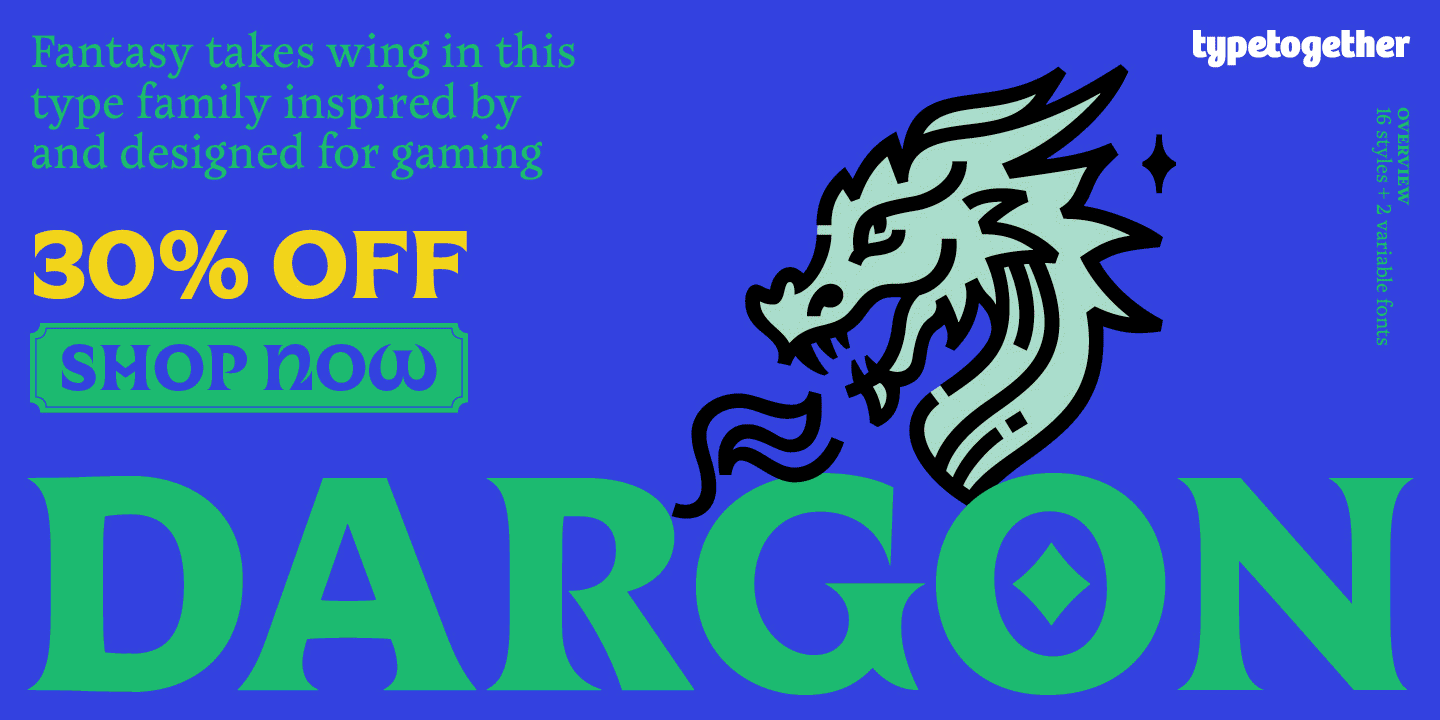
Winner of the 2023 Gerard Unger Scholarship, Dargon is a typeface forged in the fires of gaming legend – honed for razor-sharp legibility on colossal TV screens and console renders, where it commands UIs, menus, and dialogues from afar. Its uncial roots, steeped in myth and forgotten runes, unleash dramatic immersion for fantasy novel covers. They beckon readers into shadowed worlds before a page turns, bring RPG magazines to life with lore, and for games, fuse UI, epic cover art, and promos into a seamless saga of visual conquest.
Dargon walks between two worlds typographically with its display and text parts – five text and italic styles, and six uncial display fonts. Dargon has two parts – Dargon, an uncial-inspired set of six display fonts, and Dargon Text, for body copy, from on-screen user interfaces to short paragraphs to novels.